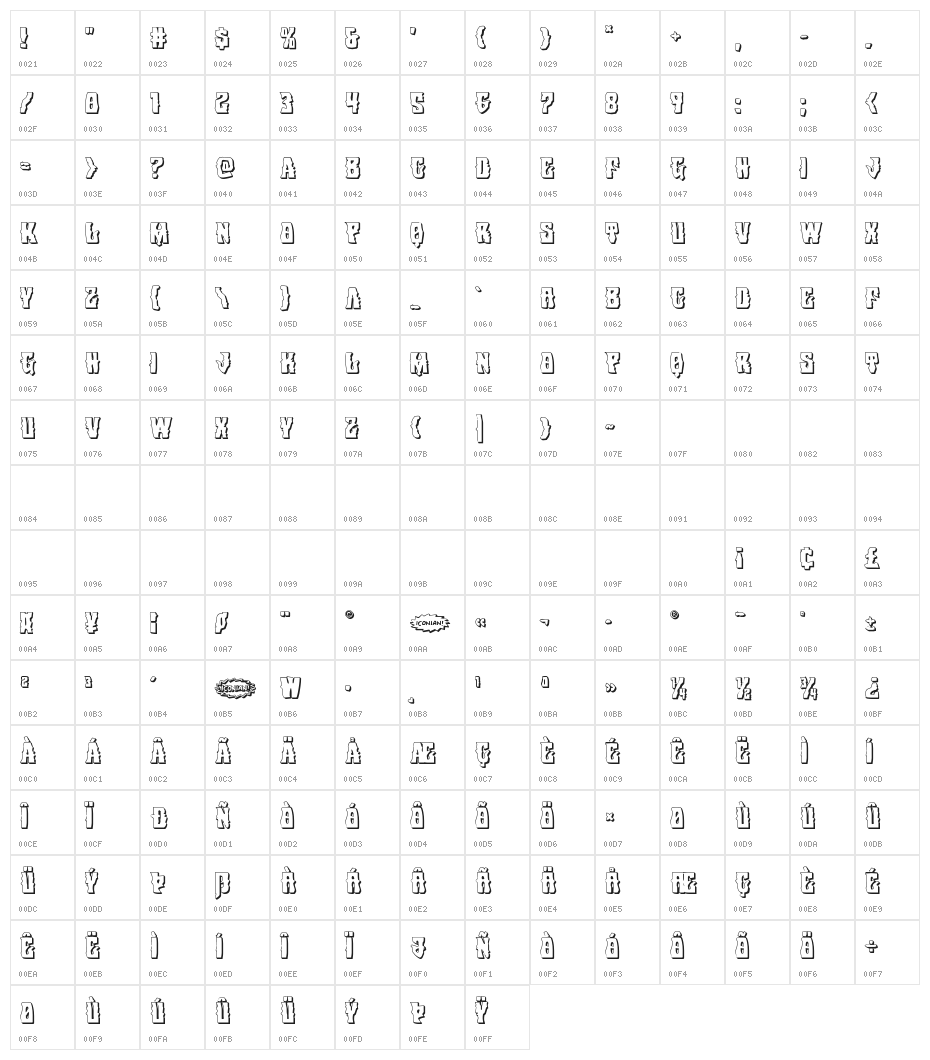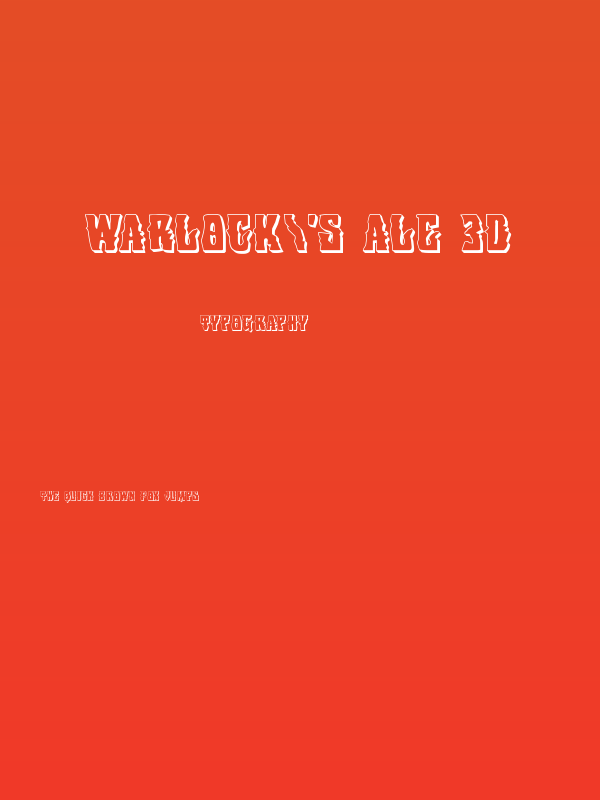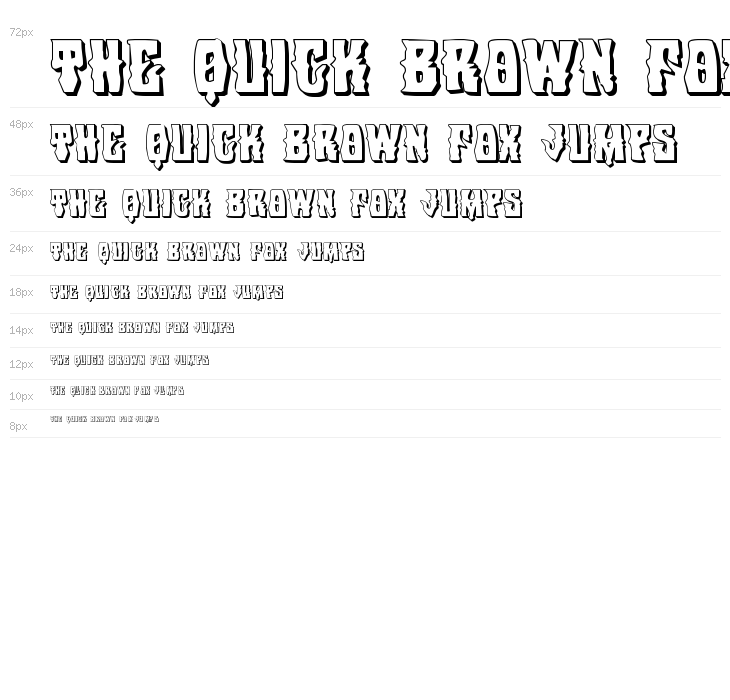
Warlock's Ale 3D Font
Warlock's Ale 3D Description
This font features a bold and dramatic 3D effect, with thick, blocky letters that have a shadowed outline, giving them a striking and impactful appearance. The characters are designed with sharp angles and a slightly irregular form, adding a sense of movement and energy. The uppercase and lowercase letters maintain a consistent style, while the numerals and special characters complement the overall aesthetic. This font is ideal for creating eye-catching headlines or titles that demand attention.